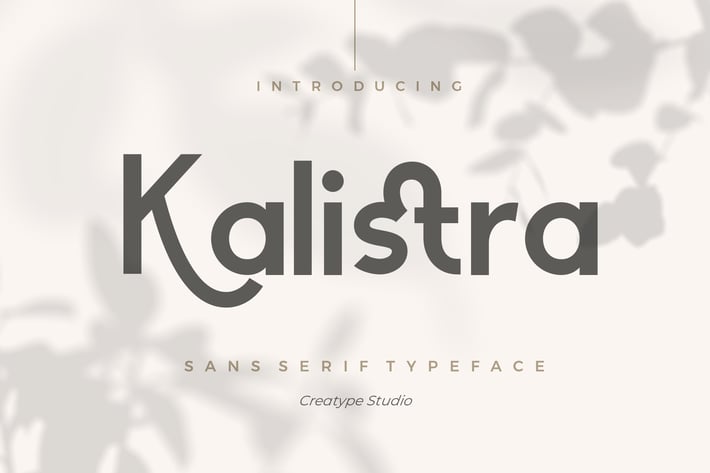
Kalistra Sans Serif Typeface
Kalistra a sans serif font looks stylish, elegant and sophisticated will perfect for your latest project.
Kalistra is perfect for branding projects, logo, wedding designs, social media posts, advertisements, product packaging, product designs, label, photography, watermark, invitation, stationery and any projects that need handwriting taste.
Ton of glyphs
Ligature & Alternate